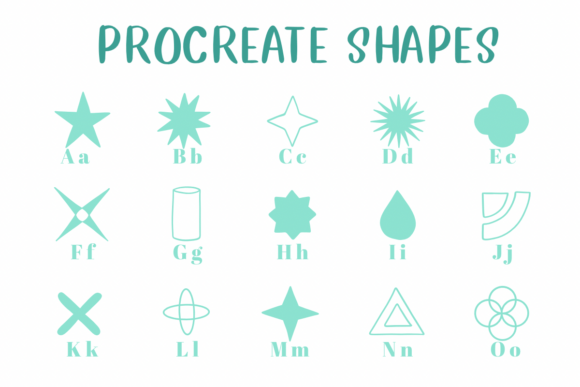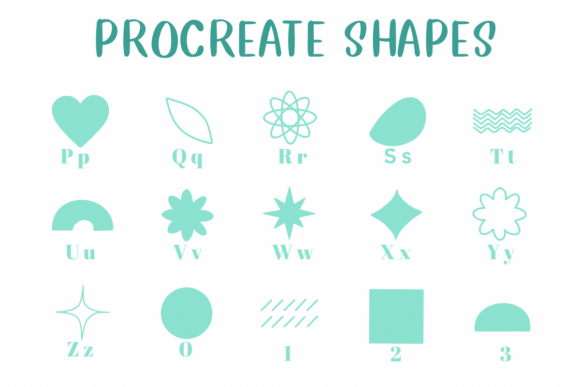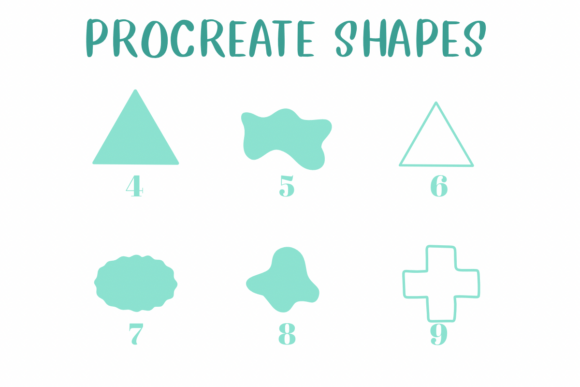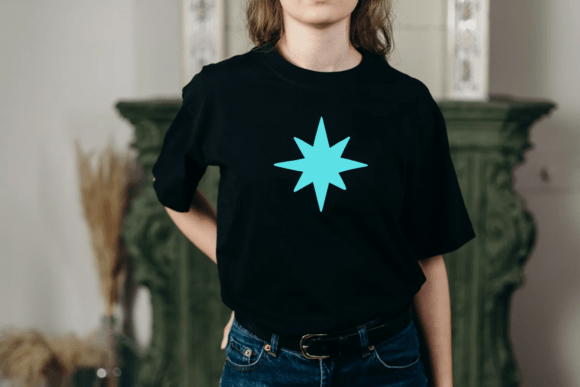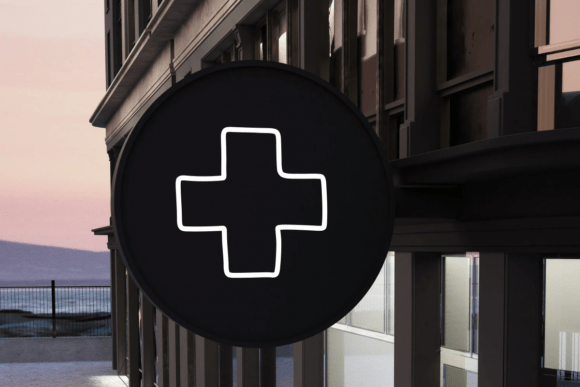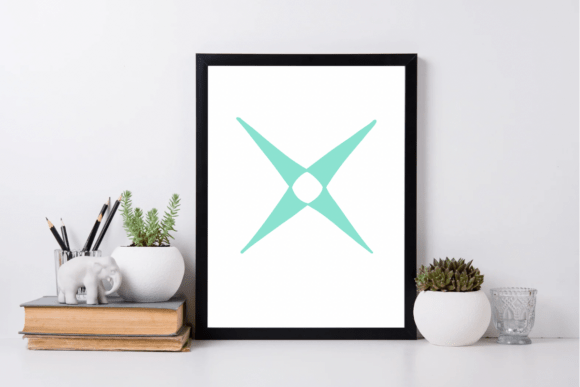
Introduction to Procreate Shapes Font
Procreate Shapes is a playful dingbat font composed entirely of graphic symbols and vector-style shapes, replacing traditional alphanumeric characters with an assortment of bold, whimsical elements.
Technically, it functions as a symbolic typeface, allowing users to insert shapes like arrows, stars, hearts, abstract blobs, and geometric icons via keyboard inputโideal for seamless use in digital illustration tools such as Procreate Stylistically, it merges thick, solid forms with outlined variants, combining retro, organic, and modern design influences.
Key Features of Procreate Shapes Font
Why Choose Procreate Shapes Font?